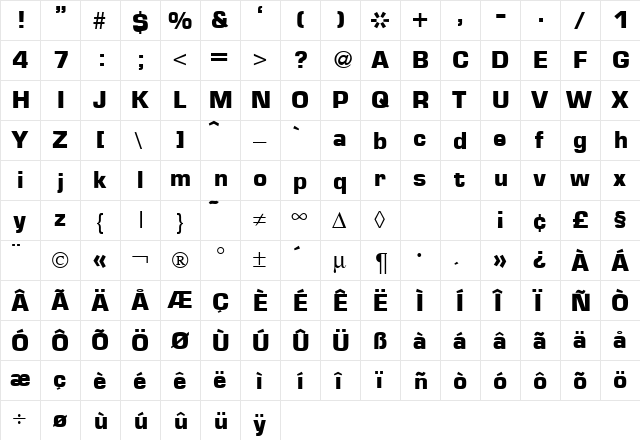
Eurasia Bold Font Preview
Eurasia Bold
Eurasia Bold Font Details
Design Context for Eurasia Typeface
Eurasia is a composed and adaptable typeface that performs quietly and consistently across a wide range of design contexts. The heavy weight commands attention and anchors typographic hierarchies.